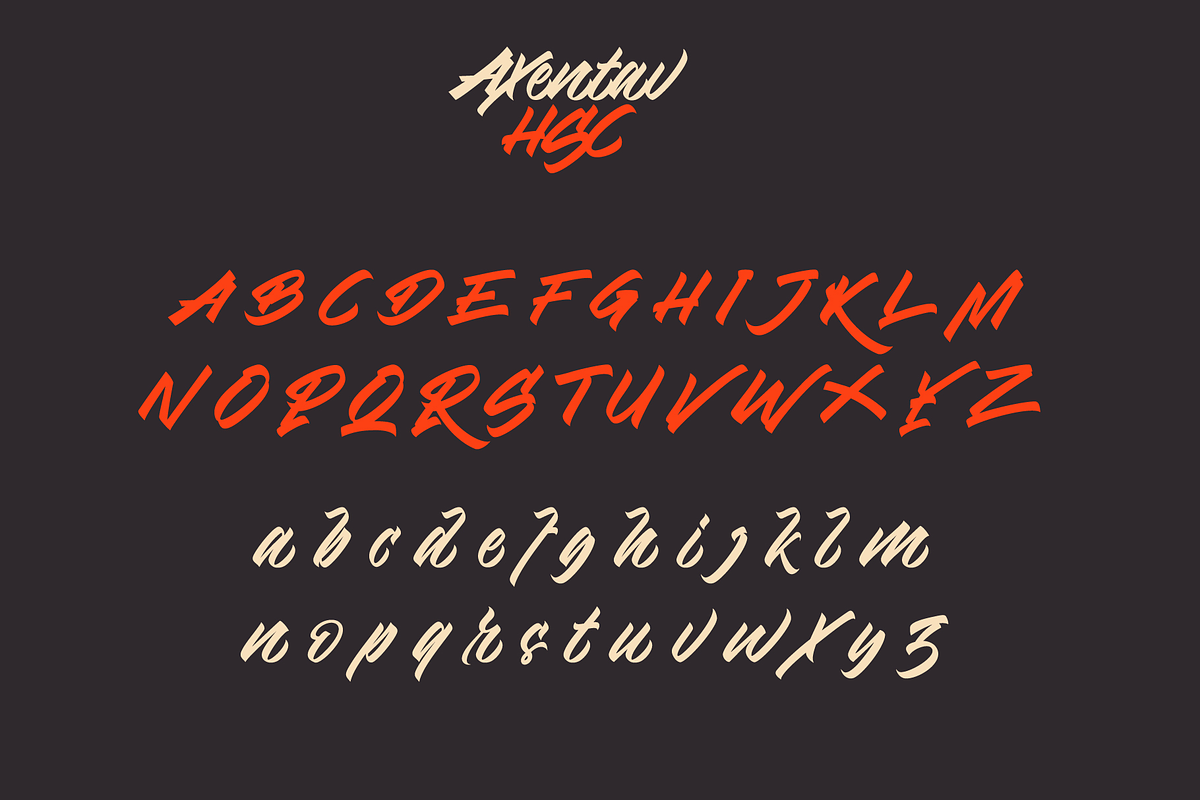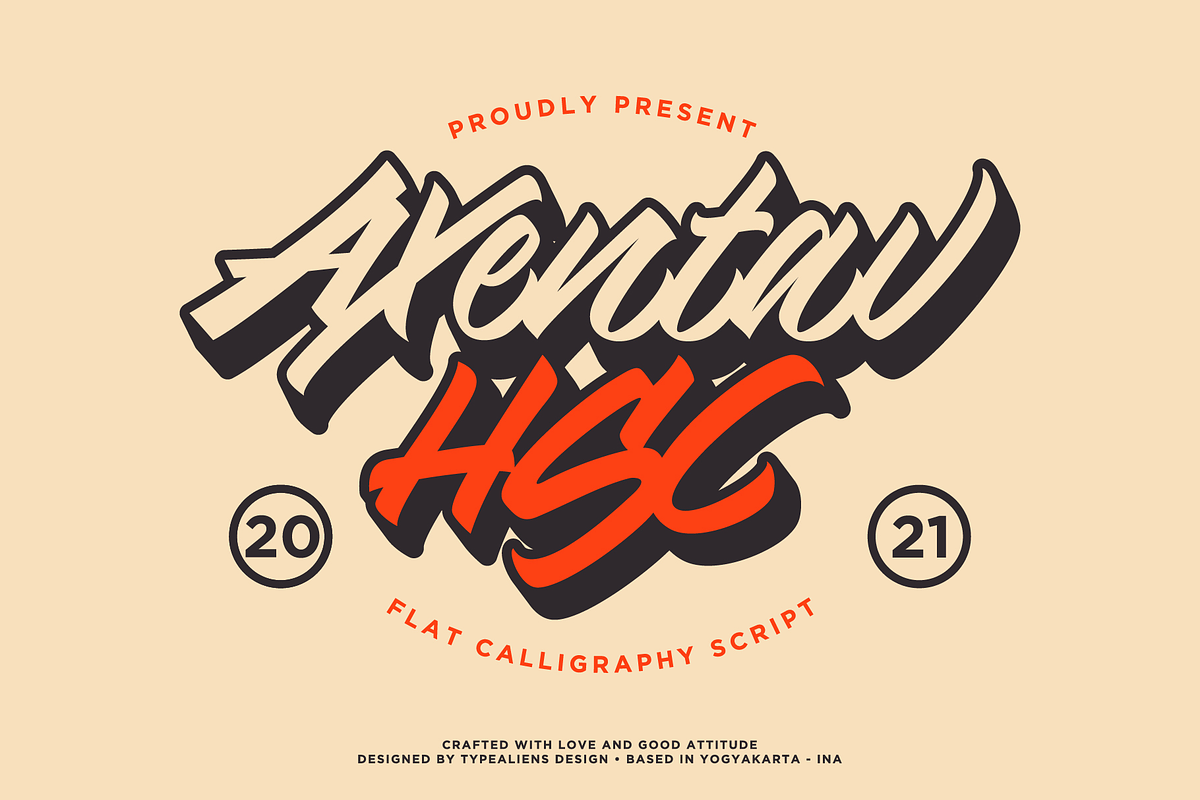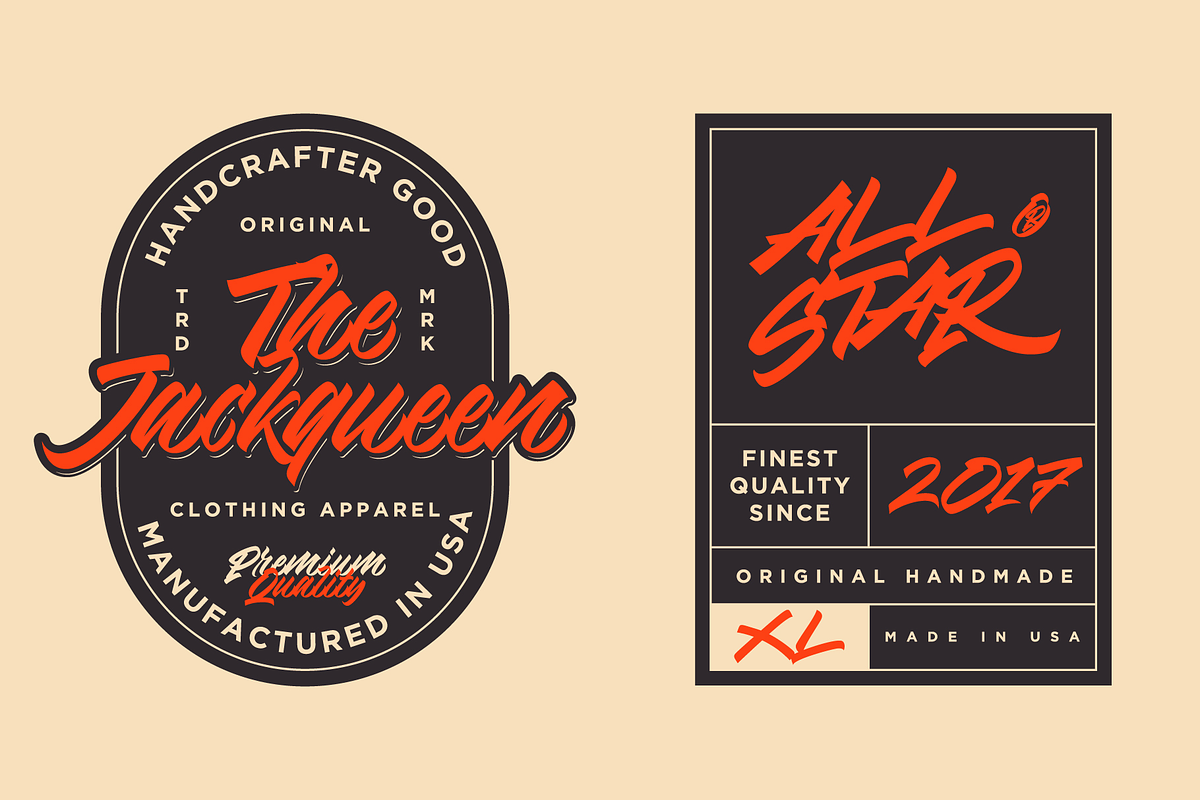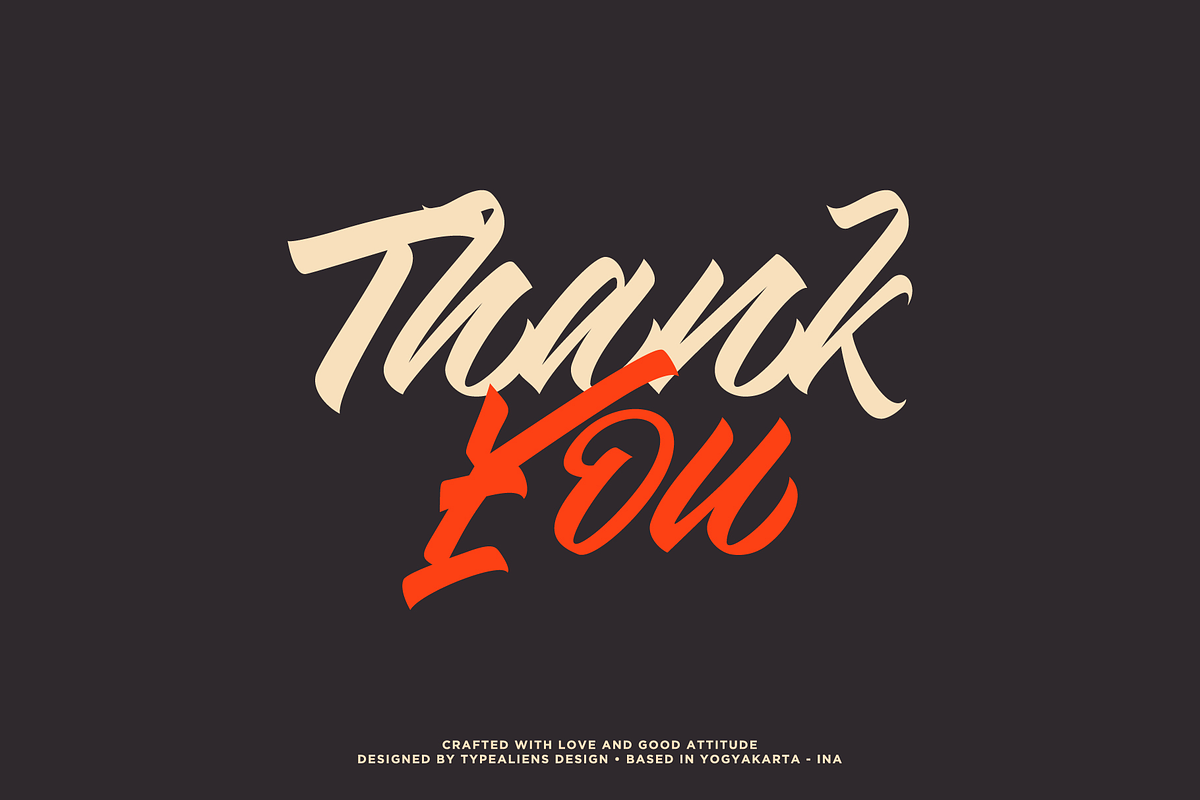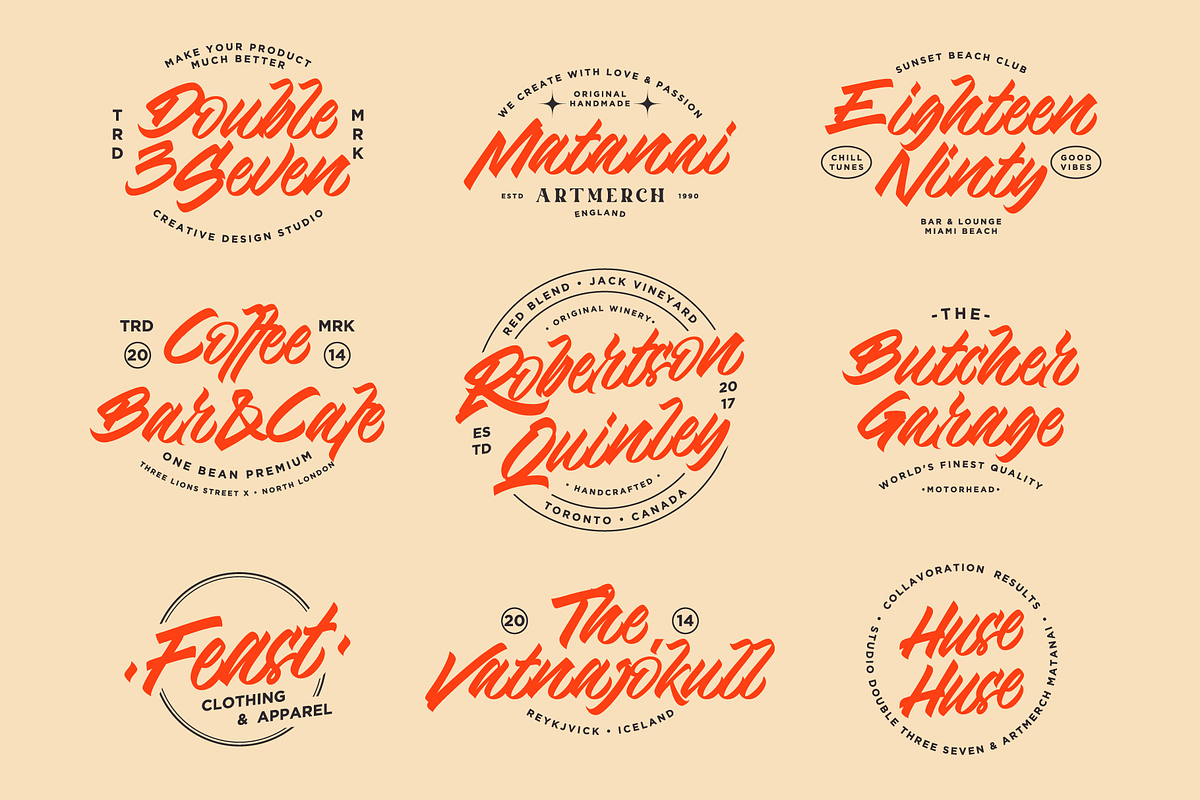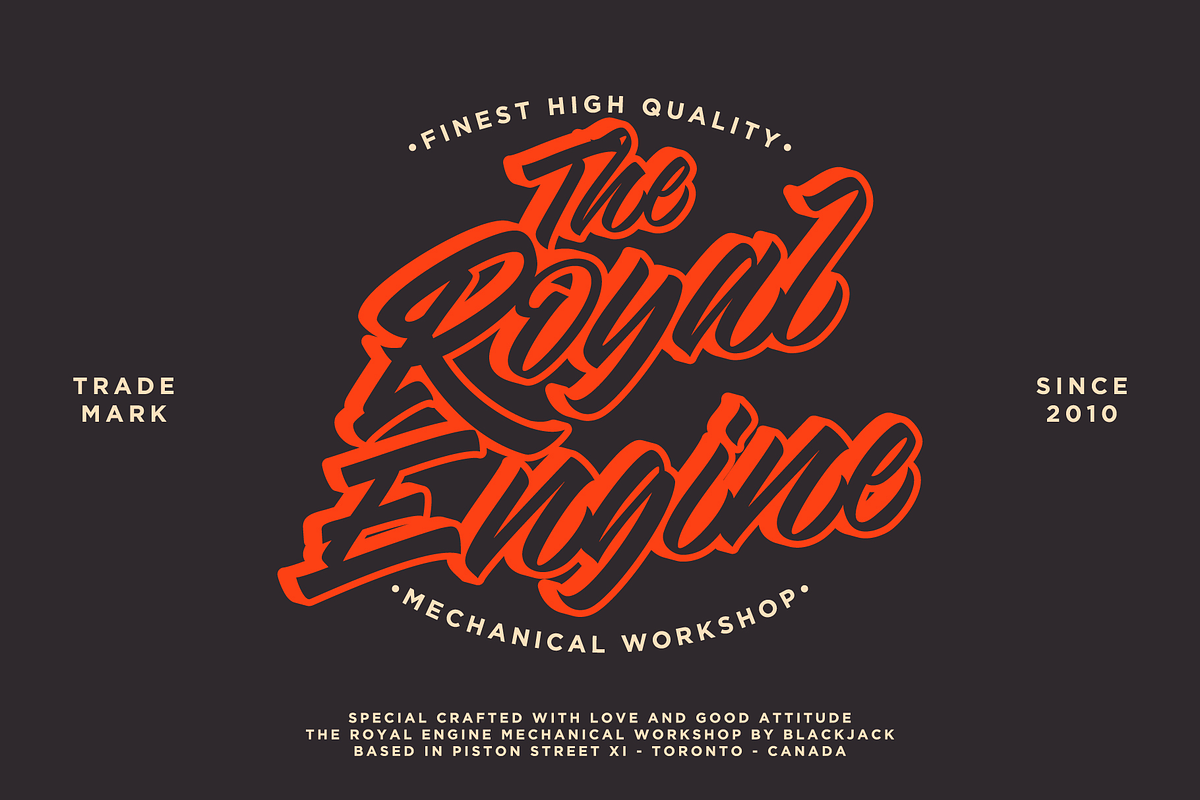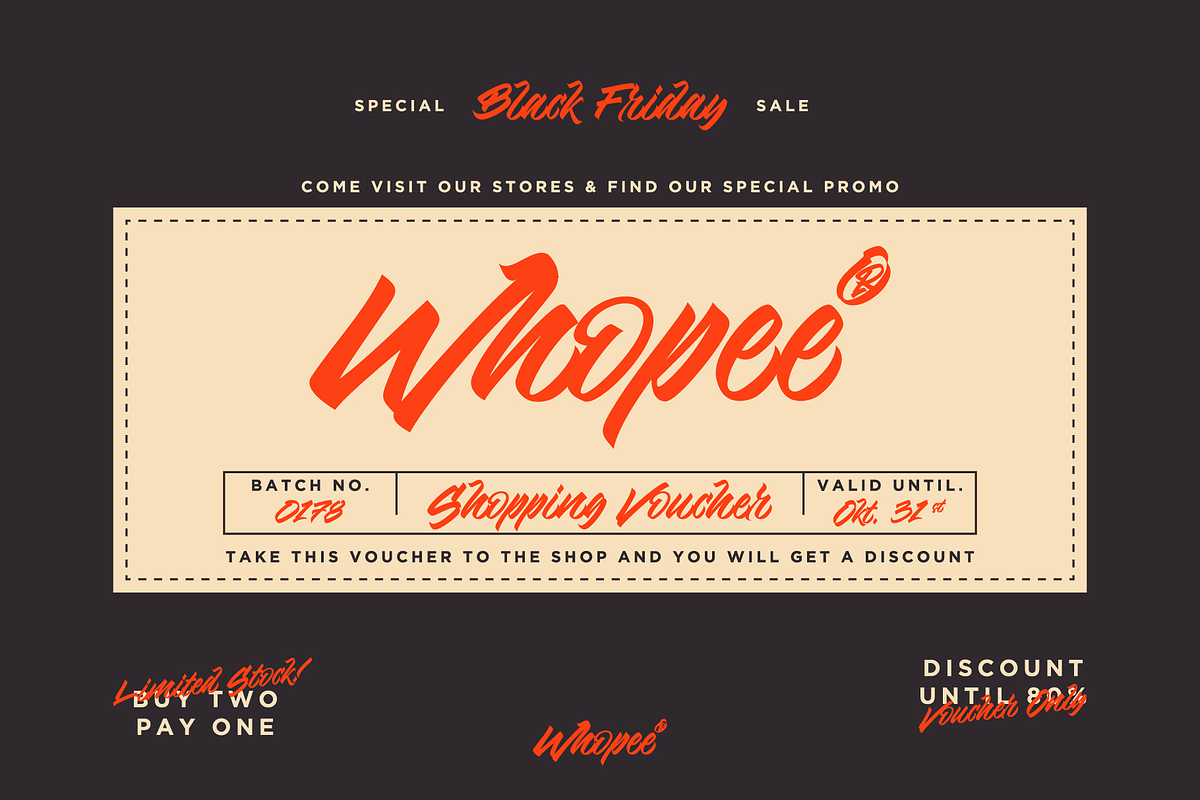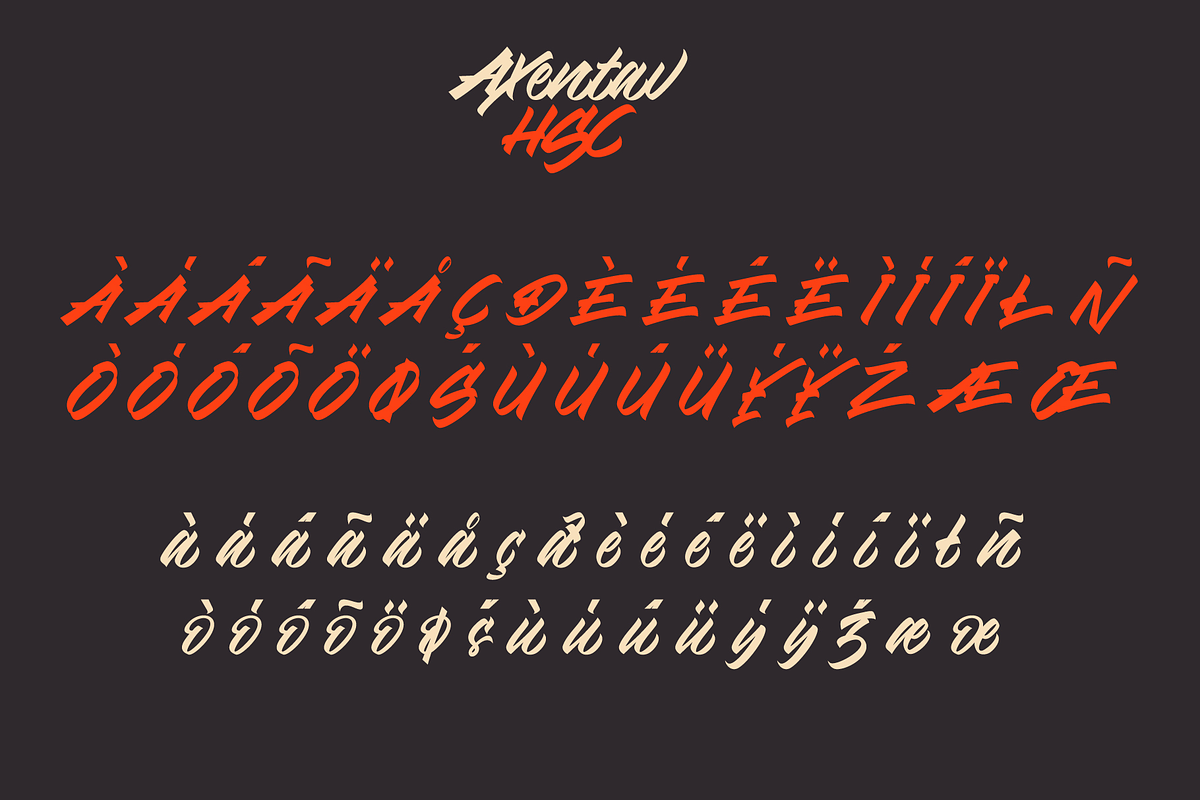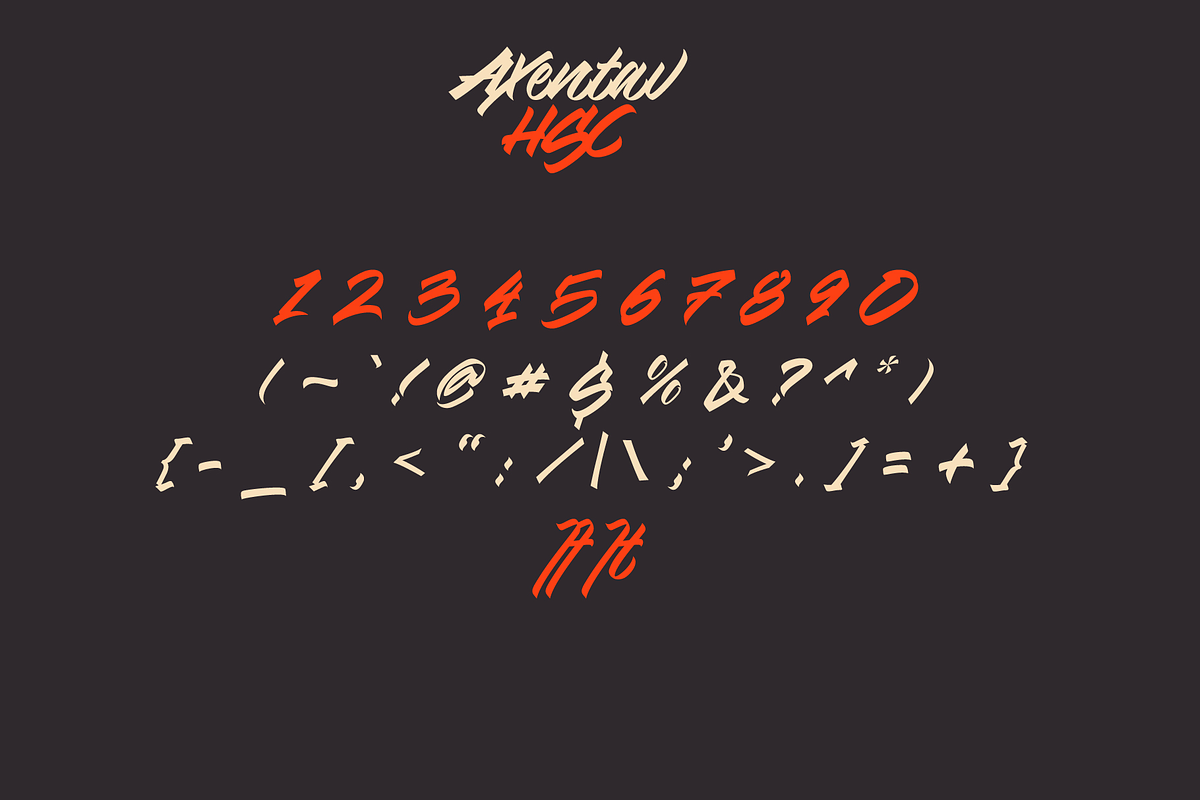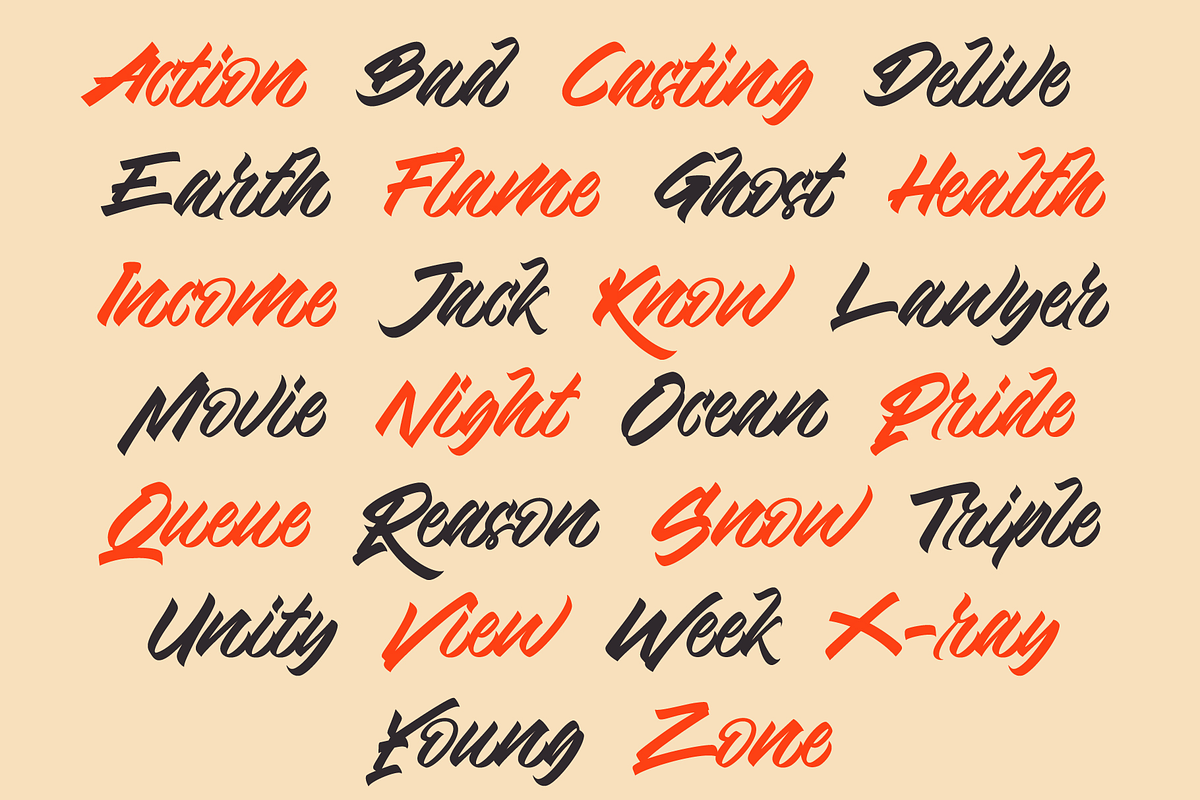
Axentav HSC
AXENTAV HSC
Axentav HSC is a unique script font because it is made from a flat pen with a calligraphy technique. So that it produces a font that is quite interesting, with a hook style like a tattoo font but has a feminine side.